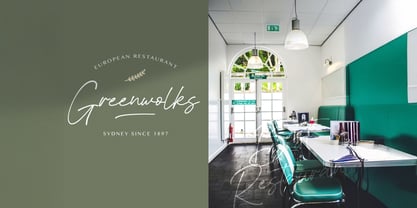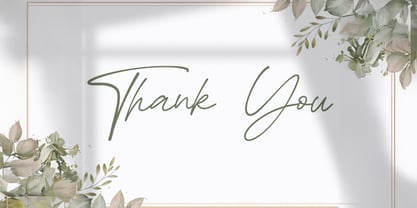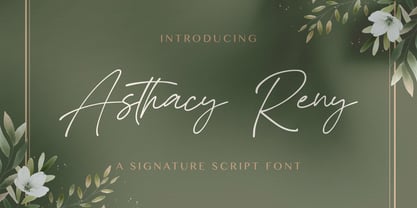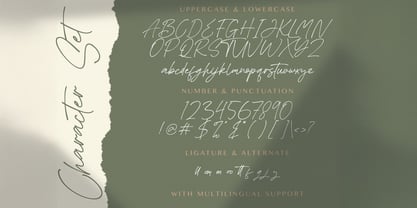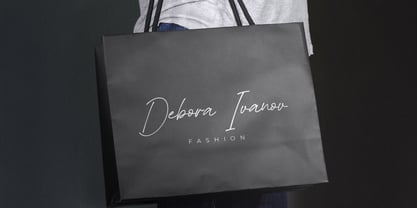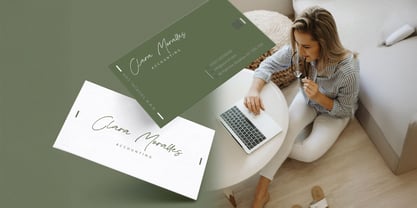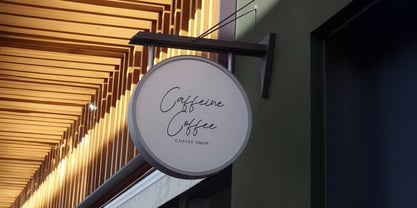
Asthacy Reny
by Stringlabs Creative Studio
The Asthacy Reny Font Family was designed by Virgiawan Listanto and published by Stringlabs Creative Studio. Asthacy Reny contains 1 styles.
Asthacy Reny is an elegant and flowing handwritten font, perfect for adding a personal and delicate touch to your designs. Its graceful characters are ideal for branding, invitations, social media, and more, bringing a charming authenticity to any project.